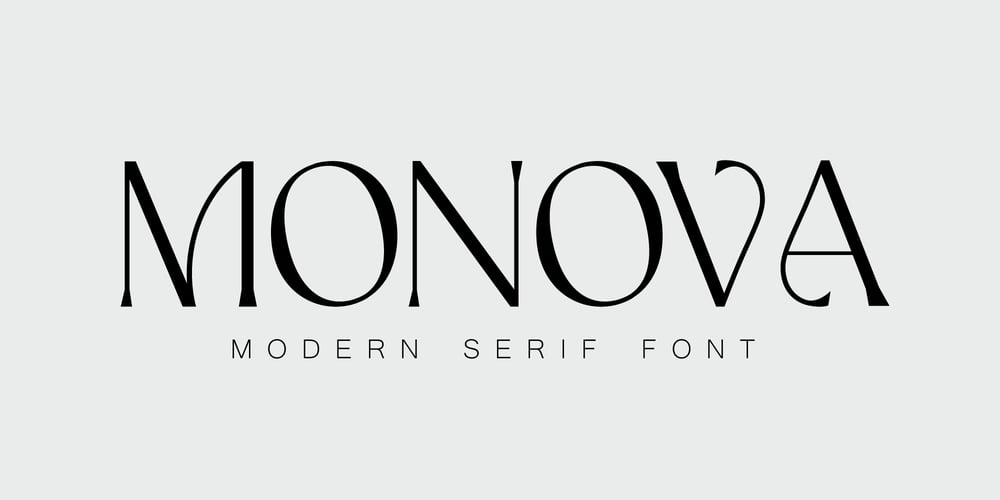
Monova Font Family was designed by Nassira Boufelja and published by Siratype. Monova contains 1 styles and family package options. Monova is a striking typeface with unique serifs, ligatures, and alternate glyphs. Its modern elegance and enhanced readability make it suitable for a wide range of design purposes. Ideal for editorial design, branding, advertising, and any project where a unique serif font with ligatures and alternatives is desired to elevate the overall aesthetic and readability. Features: – Unique Serif Design – Ligatures & alternate glyphs – Modern Elegance – Numbers & Punctuation – Multilingual support…